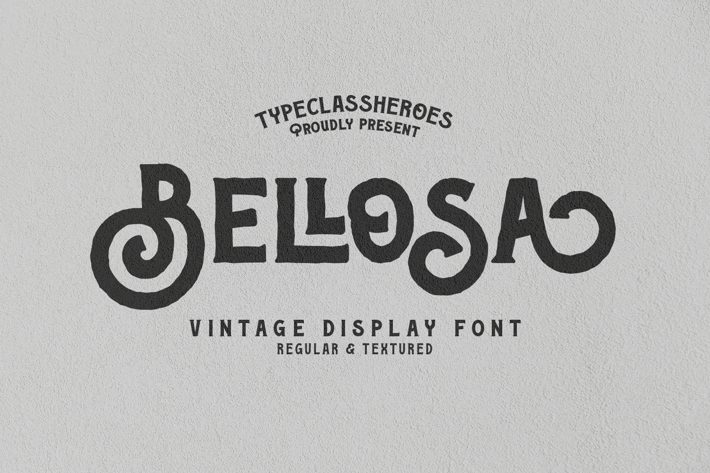
Bellosa Display Font
Really excited to introduce Bellosa is a vintage display font. It easily cooperates together and is perfect for creating the traditional style great for quotes and easily make a logotype or badge for your logo with this font. Come with special features regular and textured with a lot of alternative and ligature style.
Alternative